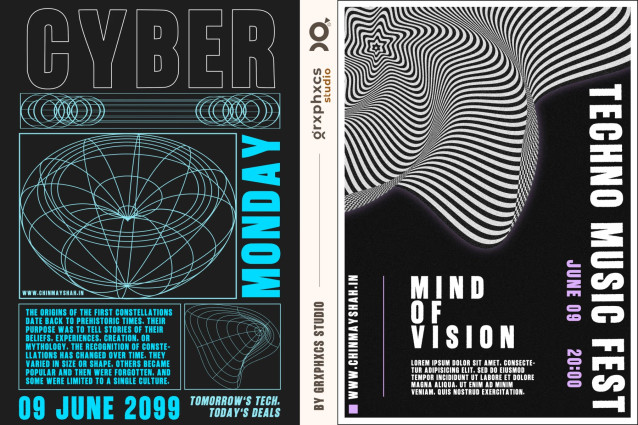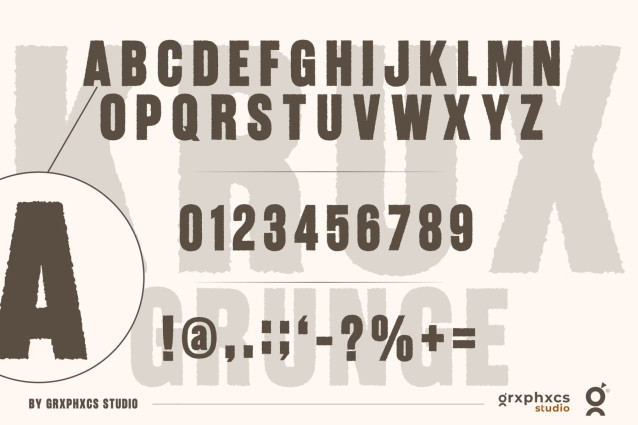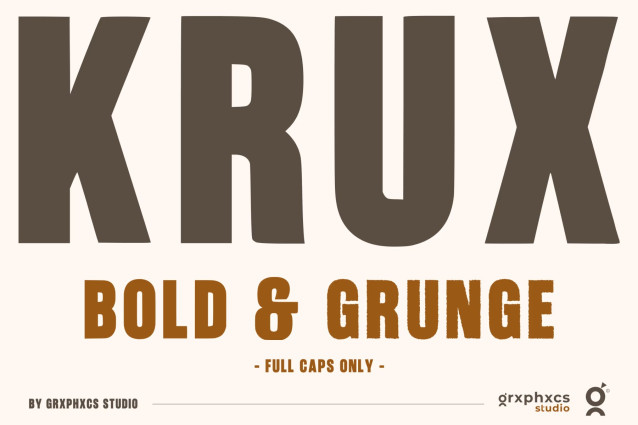
Krux Font
Krux font makes a bold statement with our latest condensed sans typeface. With clean lines and a modern appeal, this font is sure to grab attention and leave a lasting impression. Perfect for headlines, logos and any design that demands attention. It is both functional and stylish, making it a versatile choice for a variety of design projects.